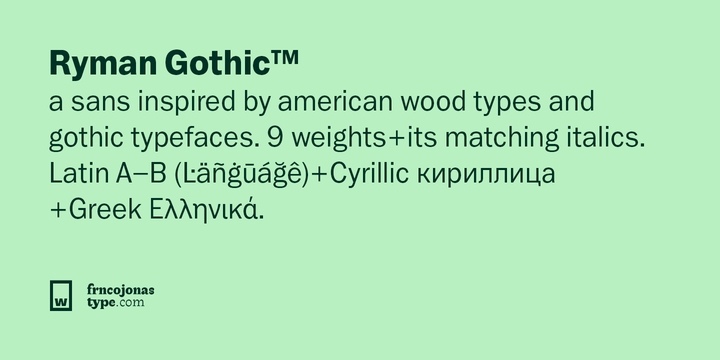
Ryman Gothic Font
Ryman Gothic Font is perfect for music venue branding, country music graphics, Nashville-inspired designs, concert poster layouts, entertainment industry signage, honky-tonk bar graphics, music festival promotions, and southern heritage branding projects.
This exciting Ryman Gothic Font pays homage to the legendary Ryman Auditorium with its distinctive character that captures the essence of American music heritage and country music tradition. The font's authentic personality and musical spirit make it an exceptional choice for projects requiring musical authenticity, southern charm, and entertainment industry credibility that resonates with music lovers and cultural enthusiasts.
The Ryman Gothic Font family encompasses multiple musical variations including Regular, Bold, Light, Condensed, Vintage, and Performance versions, providing designers with comprehensive options for creating authentic music-themed brand communications and entertainment-focused typographic compositions.
The musical character of Ryman Gothic Font makes it particularly valuable for music venues, entertainment companies, record labels, and cultural organizations that need to establish authentic connections with music audiences and communicate genuine musical heritage. Its traditional styling appeals to music enthusiasts who appreciate authentic musical culture and historical significance.
Entertainment industry professionals choose Ryman Gothic Font for its authentic musical atmosphere and exceptional brand recognition across various music applications. The font maintains its musical character from small merchandise designs to large concert venue signage, ensuring consistent musical branding and cultural authenticity throughout all entertainment communications.
The distinctive heritage of Ryman Gothic Font creates immediate emotional connections through powerful associations with American music history and country music traditions. This makes it invaluable for brands seeking to leverage musical heritage and cultural authenticity for marketing campaigns and entertainment industry positioning.
Music-focused brands utilize Ryman Gothic Font to establish credible identities that communicate musical tradition, cultural heritage, and entertainment authenticity in competitive music markets. The typeface's historical significance helps organizations differentiate themselves while attracting music lovers who value genuine musical culture, heritage venues, and authentic entertainment experiences.